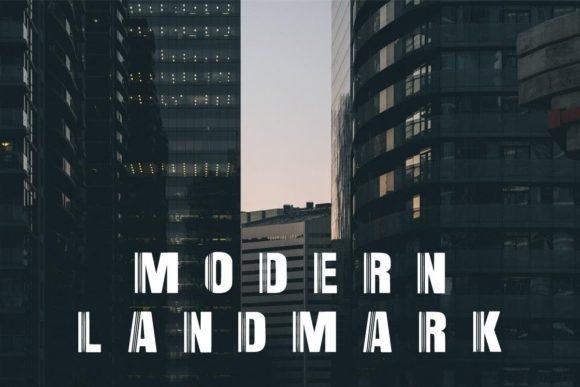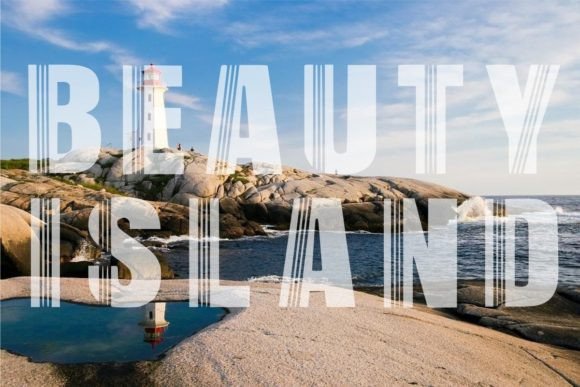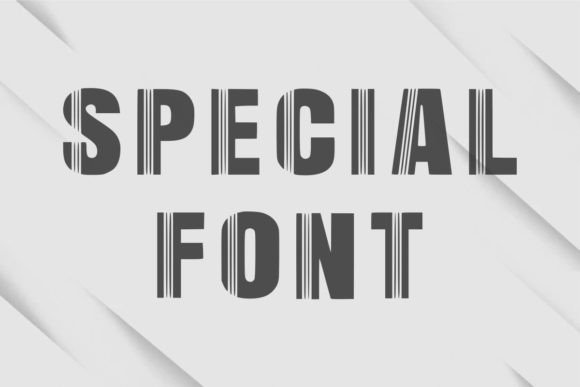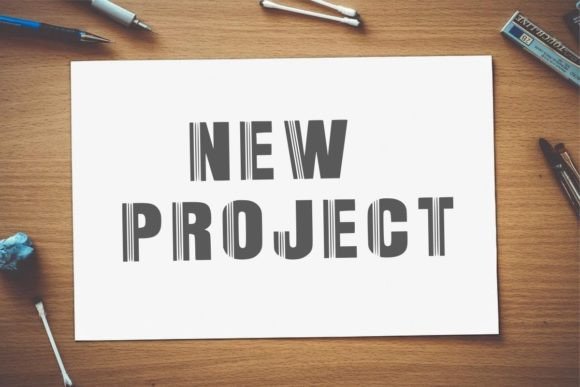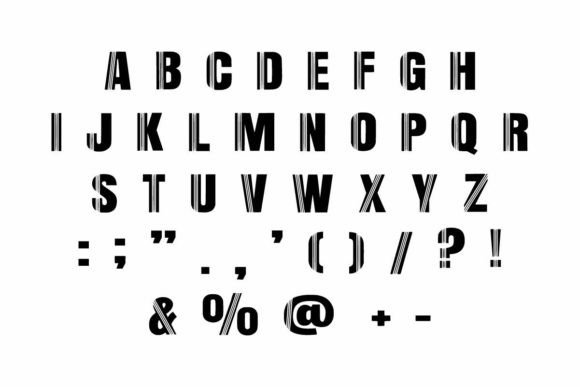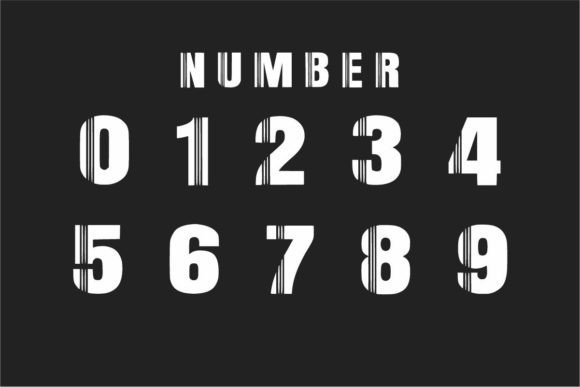
The Perfect Winter Typography: Unveiling the Canada Font
Have you ever been snowed in on a cozy winter morning, sipping hot coffee, and browsing through design inspiration boards? It’s the perfect moment to spark your creativity and think about the typography that will make your winter projects stand out. For designers looking to create a festive and bold look, the Canada Font is an excellent choice.
This cool and bold display font features 3-line shape elements that make it perfect for any winter and holiday branding project. From product packaging to invitations, quotes, and logos, the Canada Font is a versatile tool that can elevate your design to the next level. Its value lies in its ability to add a touch of sophistication and festivity to any project, making it a must-have for designers looking to create a unique winter look.
Canada Font Key Features
- Font Family: Canada Font is a sans-serif typeface, designed specifically for Canadian typography.
- Size Range: Offers a wide range of font sizes, from 8-point to 72-point, making it suitable for various applications, including body text, headings, and titles.
- Resolution: Designed to be legible at various resolutions, including 72 dpi, 96 dpi, and 120 dpi, ensuring clear readability on different screens and devices.
- Unique Characteristics: Features a unique blend of modern and traditional elements, with a focus on clarity, simplicity, and cultural relevance, making it an ideal choice for Canadian brands and publications.
Review: Canada Font
Overall, I think Canada Font has some great qualities, but it’s not without its limitations. ✨ Let’s start with the positives.
- The font’s bold weights are well-designed and offer a great contrast to the regular weights.
- It has a unique and modern feel that could work well for digital products and editorial content.
- The font’s x-height is quite large, which makes it easy to read, especially at smaller sizes.
However, there are a few areas where Canada Font falls short. ⚠️ Here are some limitations I’ve noticed:
- The font’s italics can look a bit uneven, which might be distracting in certain contexts.
- The font’s spacing could be improved, especially in the regular weights.
- It’s not particularly well-suited for long blocks of text, as it can start to feel fatiguing.
Overall, I think Canada Font is a solid choice for digital projects where you want a modern and unique look. However, it’s not a one-size-fits-all solution, and you may need to consider other options for certain types of content.
Canada Font is a versatile font that can be used in various design projects, including:
– Brochures and flyers
– Web design
Some tips for getting the most out of Canada Font include:
– Experimenting with different font sizes and colors
– Combining Canada Font with other fonts for a unique look
– Using Canada Font in conjunction with images and graphics for a visually appealing design
Comparison: Great Vibes is more cursive and has a softer feel compared to Canada Font’s bold and rounded edges.
Comparison: Pacifico is more elegant and has a more subtle feel compared to Canada Font’s bold and playful edges.